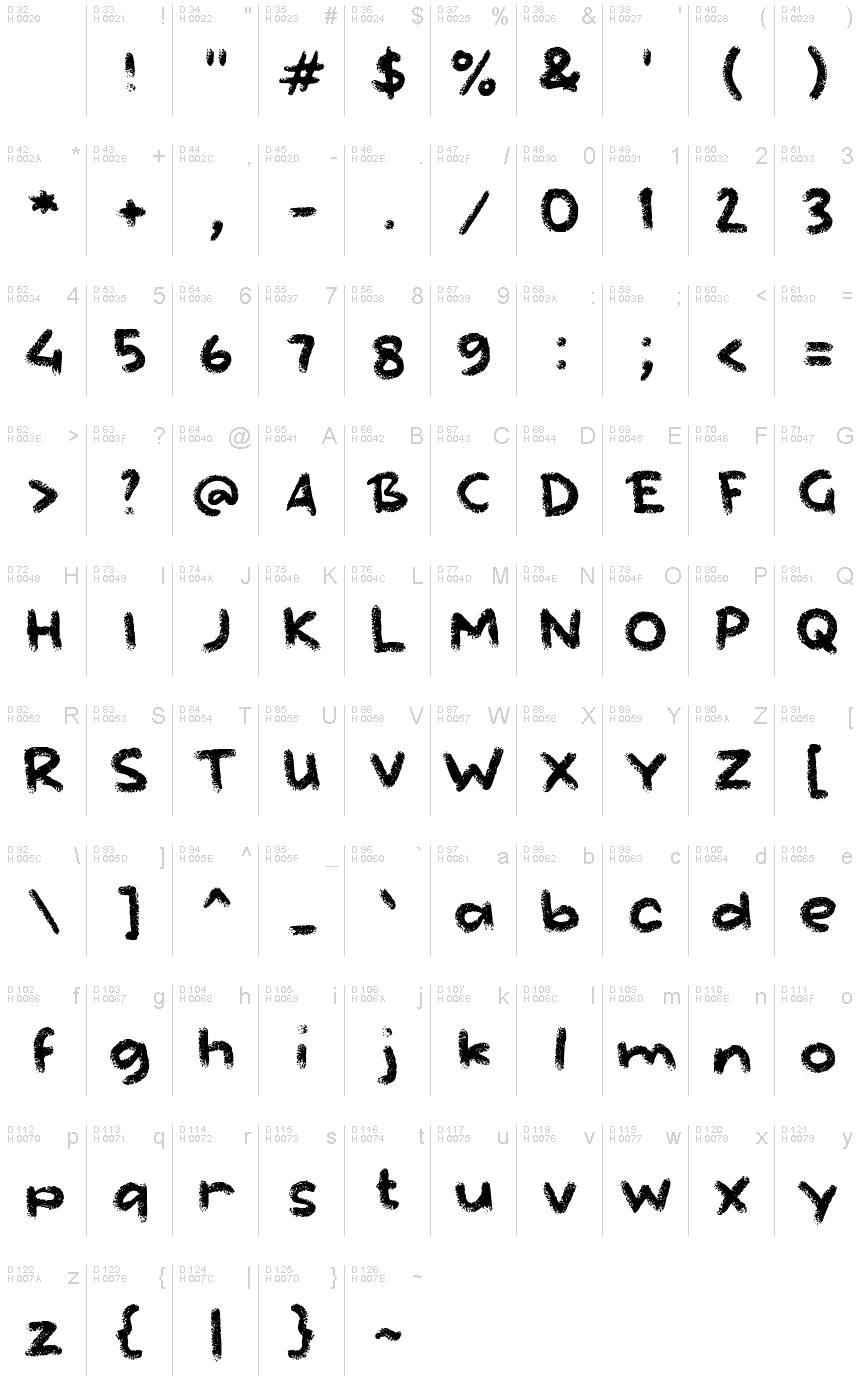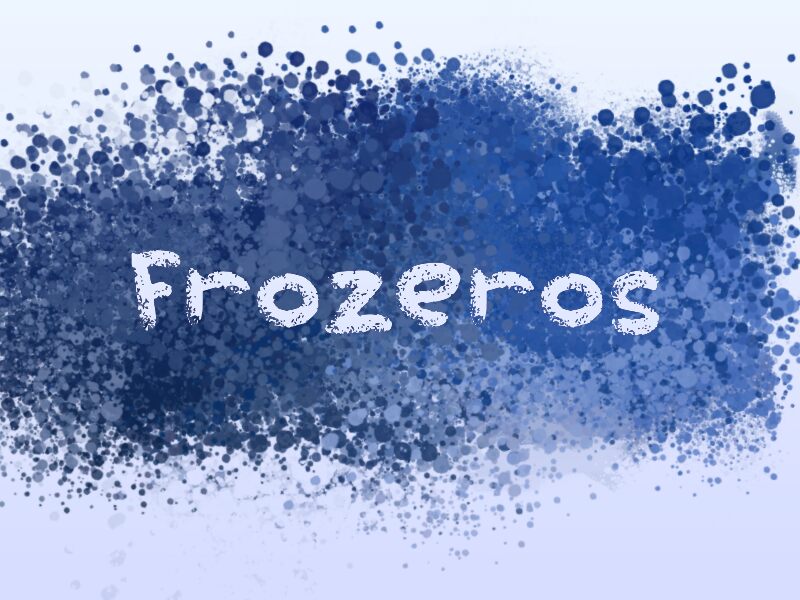
Frozeros
Frozeros, a bold and semi-expanded brush font created by wep, brings an artistic touch to any project.
With its expressive strokes and dynamic flair, this font is ideal for logo designs that desire a bold statement. Its airbrush-like style adds a contemporary feel to posters and social media graphics, capturing attention effortlessly. Frozeros' versatility extends to album covers, where it can evoke the energy of music genres like rock or hip-hop.
Embrace the captivating power of Frozeros to breathe life into your brand, leaving a lasting impression on your audience.